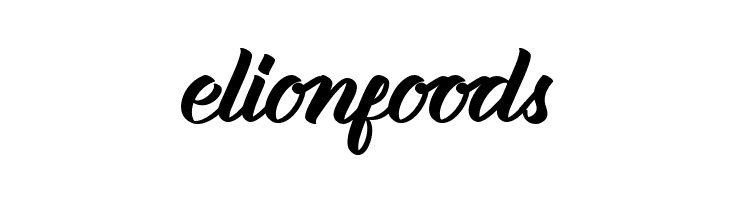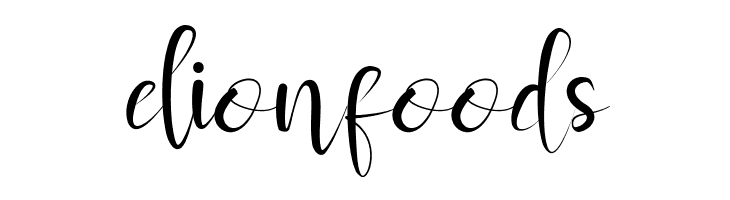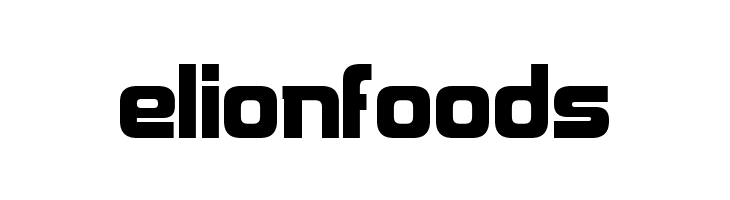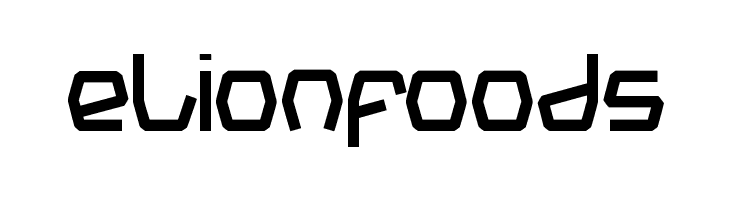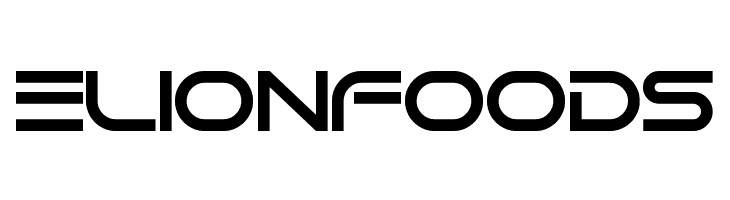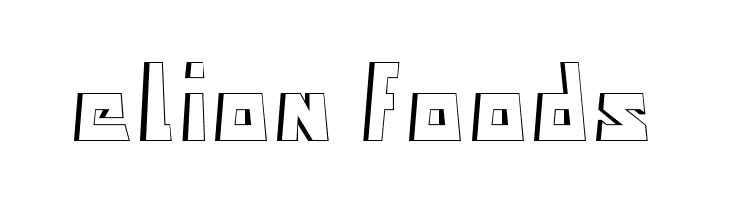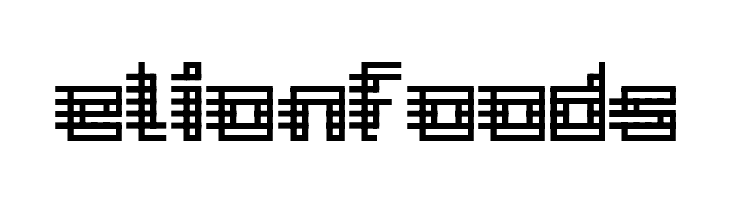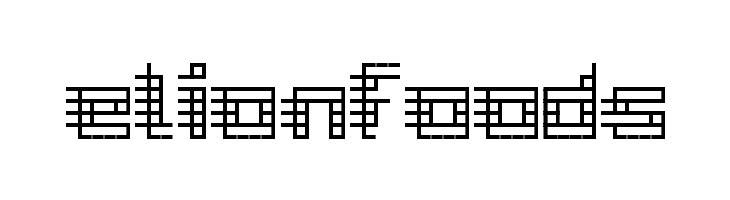
A grid-based, pixelated font with a retro digital aesthetic.
A bold, grid-based font with a pixelated, retro digital style.
A bold, geometric font with a futuristic, angular design.
A futuristic, geometric font with angular edges and consistent thickness.
A bold, flowing script font with elegant, dynamic letterforms.
A futuristic, geometric font with bold, angular letterforms.
An elegant, flowing script font with high contrast and artistic flair.